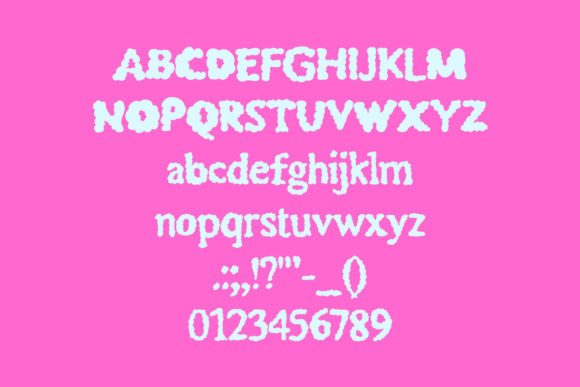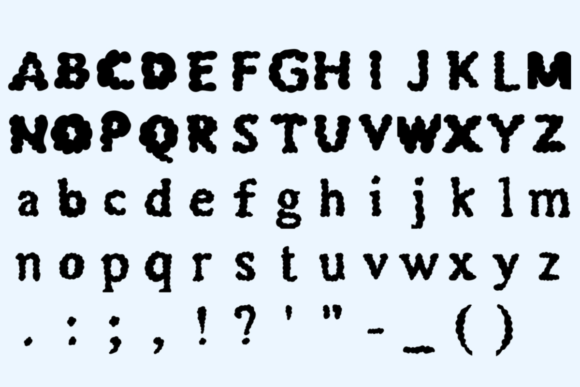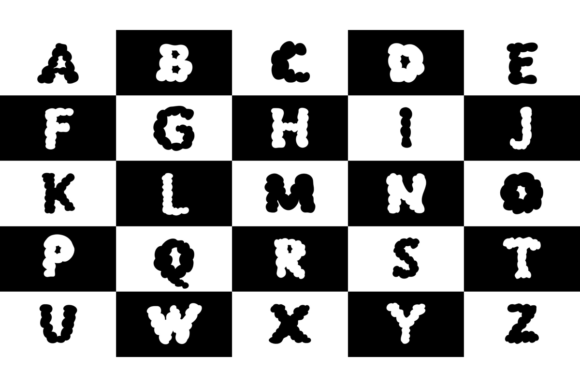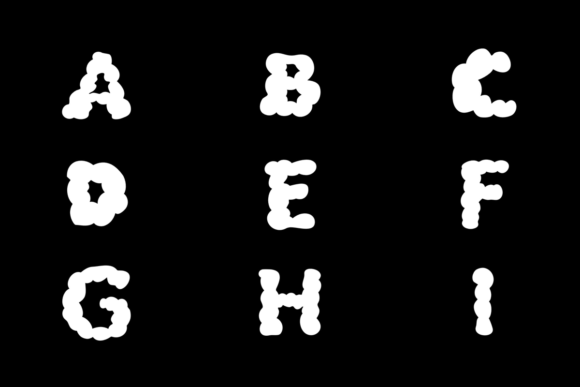
When Creativity Strikes
Have you ever been brainstorming a new project, and suddenly, a spark of inspiration hits you? The ideas start flowing, and you can’t wait to bring your vision to life. For designers, these moments are what make all the hard work worth it. And, for those who want to make a lasting impression, there’s a secret ingredient that can take your design to the next level – a font that’s as bold as your imagination.
Enter the BoomBoom Font, a modern display font designed to grab attention and make your creations stand out. This charismatic font is perfect for headlines, logos, social media graphics, flyers, cards, and more. With its unique style, BoomBoom Font adds a touch of sophistication and playfulness to any design, making it a valuable addition to any designer’s toolkit.
Key Features of Boomboom Font
- Unique Characteristics: The font features a playful, energetic, and dynamic feel, making it ideal for use in creative and attention-grabbing designs, such as logos, posters, and advertisements.
- Character Set: Boomboom Font includes a comprehensive character set, including uppercase and lowercase letters, numbers, punctuation marks, and special characters, ensuring that designers have all the necessary tools to create effective designs.
Boomboom Font Review
Overall, I think the Boomboom Font has some really great qualities that make it a solid choice for certain design projects. ✨
- Unique and playful design: The font’s quirky, hand-drawn feel is sure to add some personality to your designs.
- Wide range of weights and styles: With multiple weights and styles to choose from, you can tailor the font to fit your specific design needs.
- Great for digital use: The font is optimized for digital use, making it a great choice for websites, apps, and other digital projects.
However, there are some limitations to consider. ⚠️
- Not ideal for body text: The font’s playful design can make it difficult to read for large blocks of text.
- Limited language support: The font may not be optimized for languages that require a lot of diacritical marks or other special characters.
- Some characters may be inconsistent: I noticed that some characters, such as the “e” and “a”, can be inconsistent in their design.
Overall, I think the Boomboom Font is a great choice for projects where you want to add some personality and whimsy. Just be mindful of its limitations and use it in moderation.
Use the Boomboom font for creative and playful designs, such as:
- Party invitations and event materials
- Children’s book illustrations and graphics
Remember to adjust the font size and style to fit your design needs.